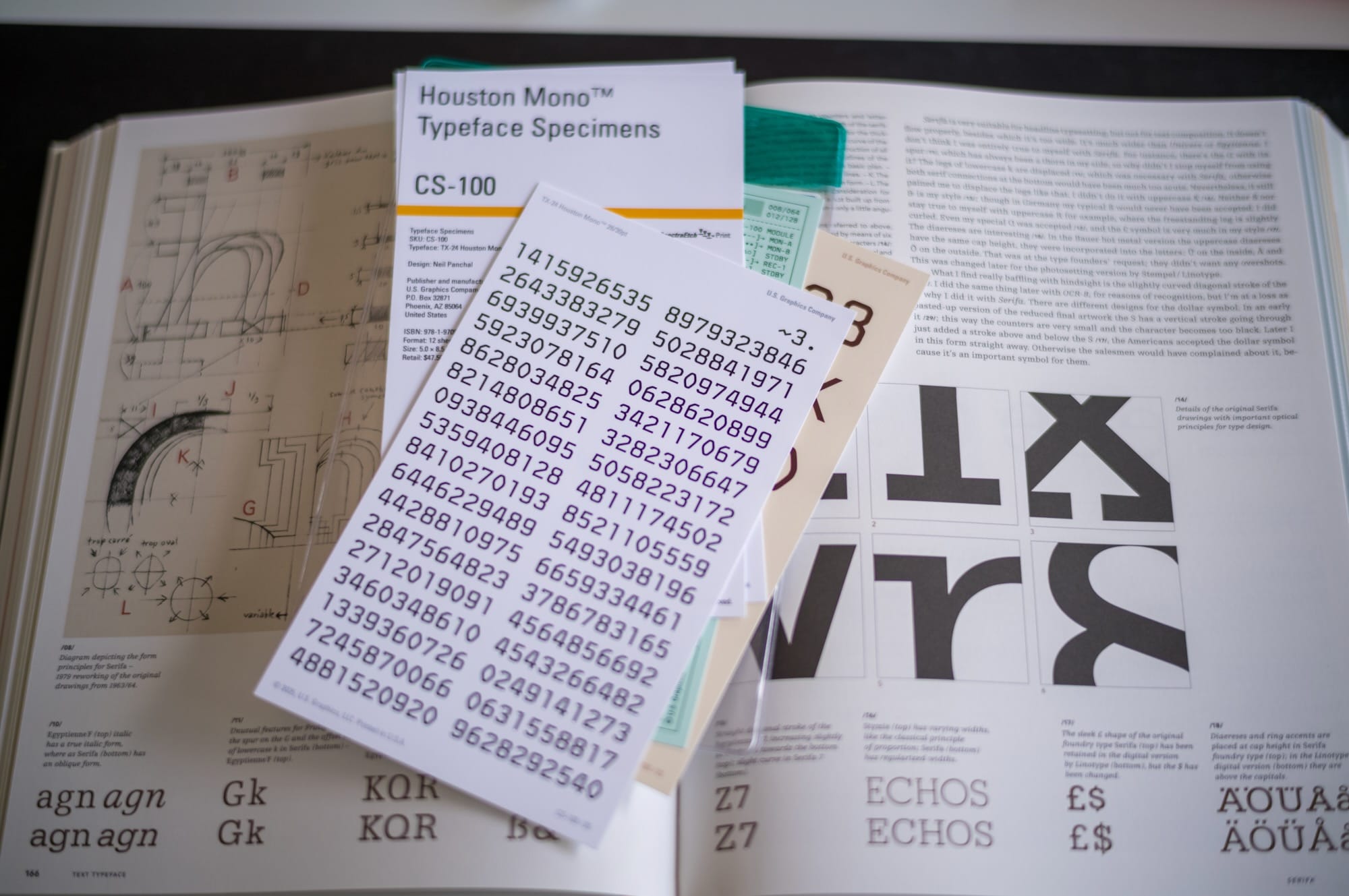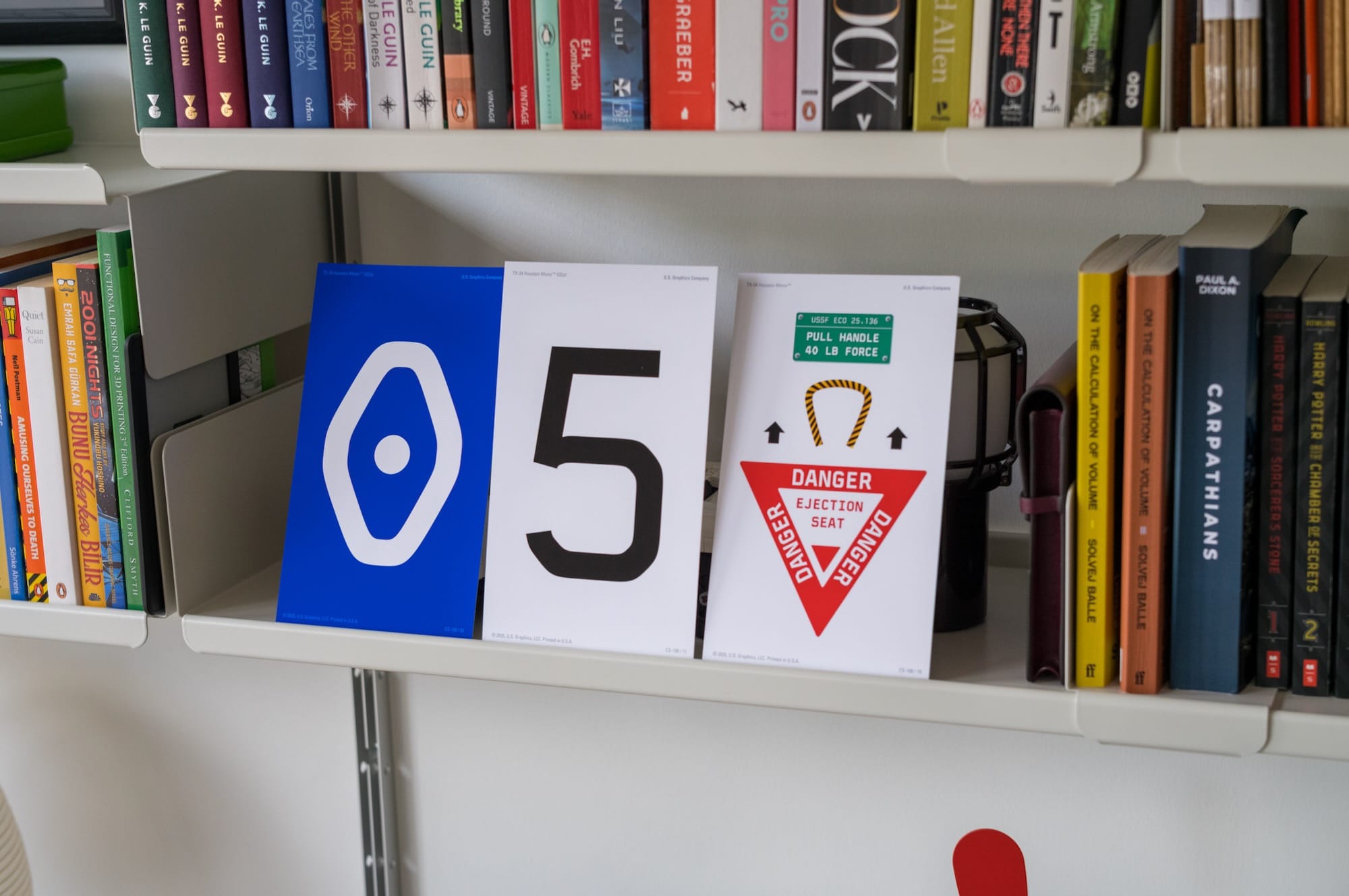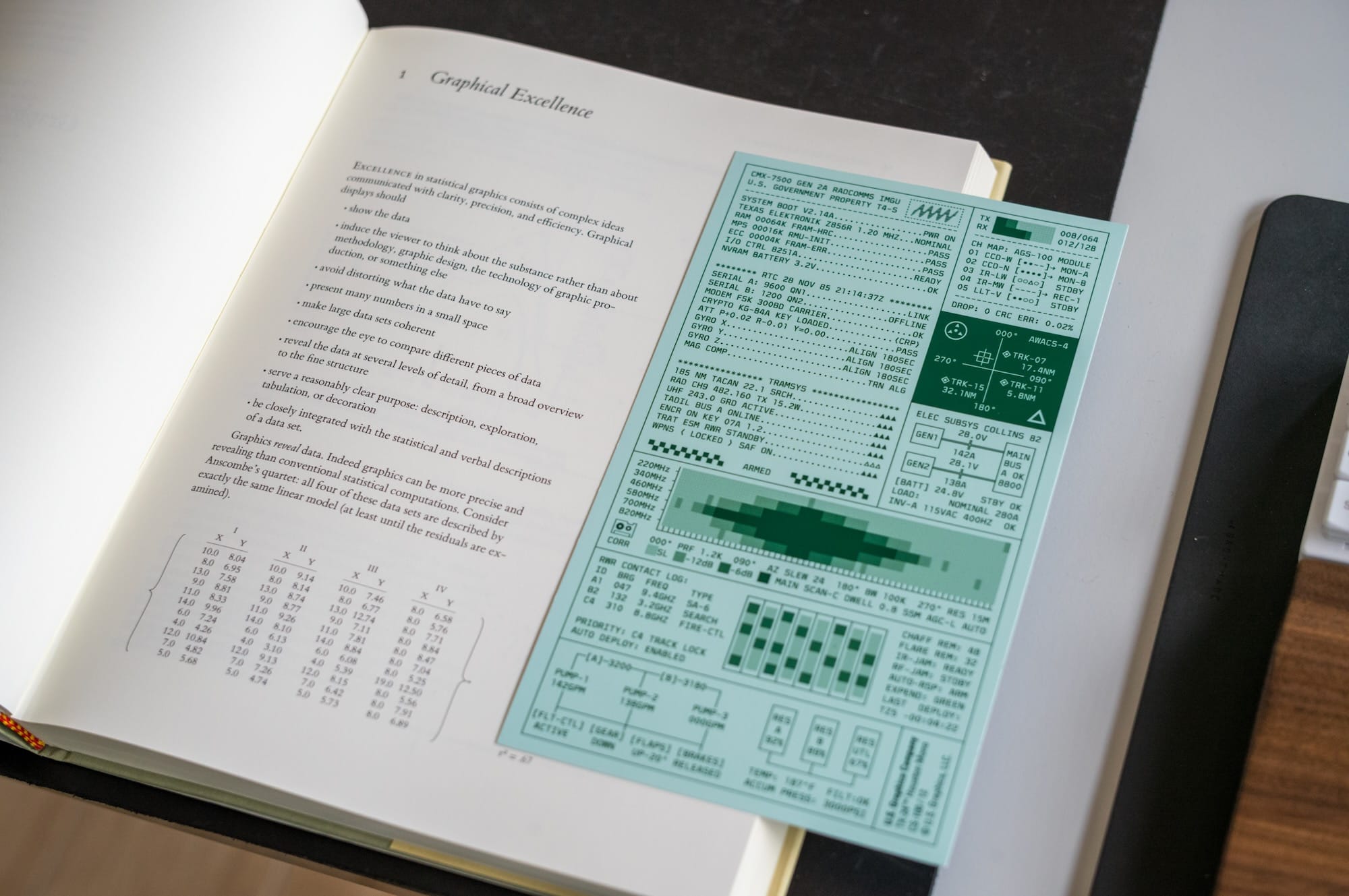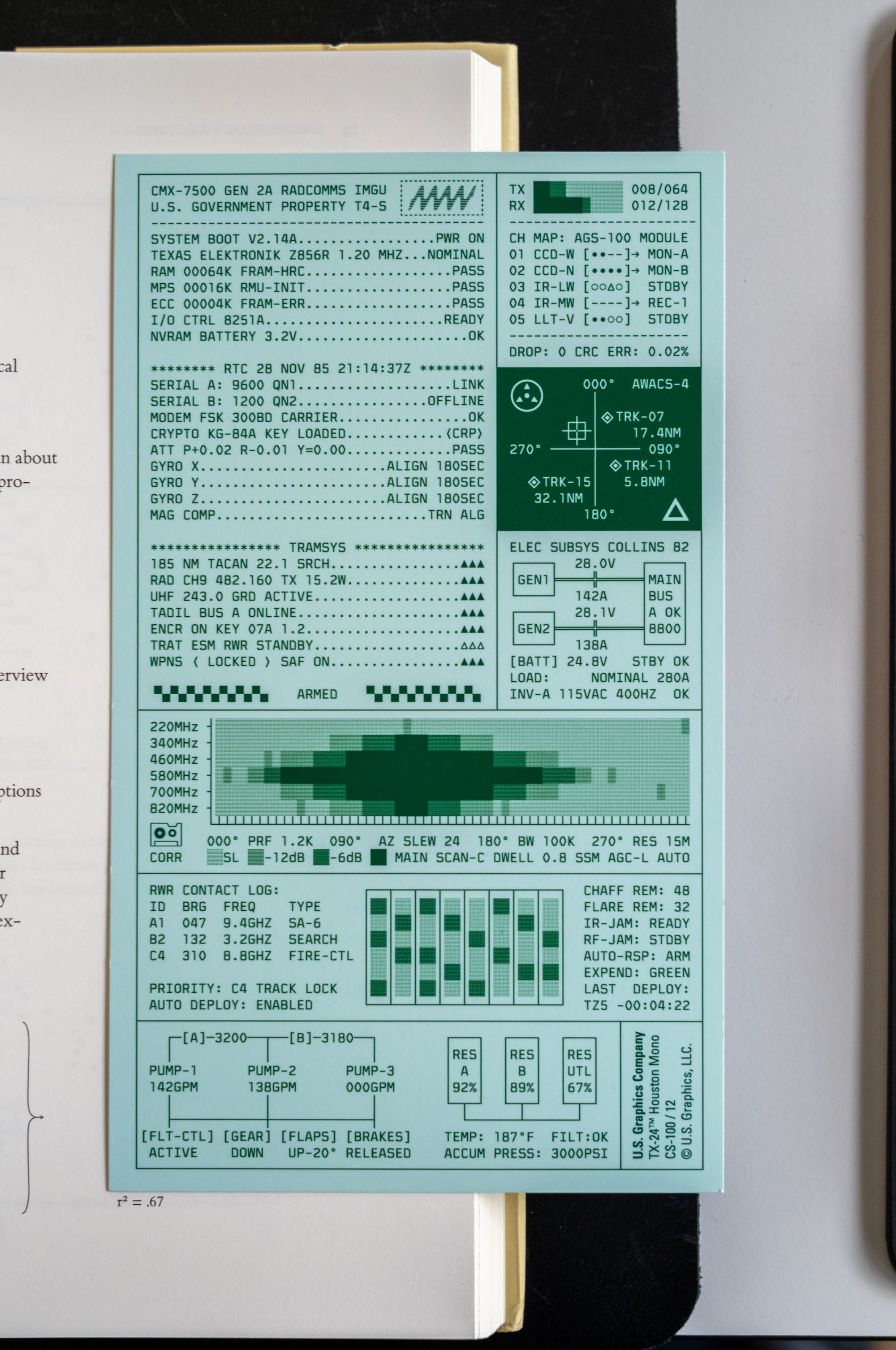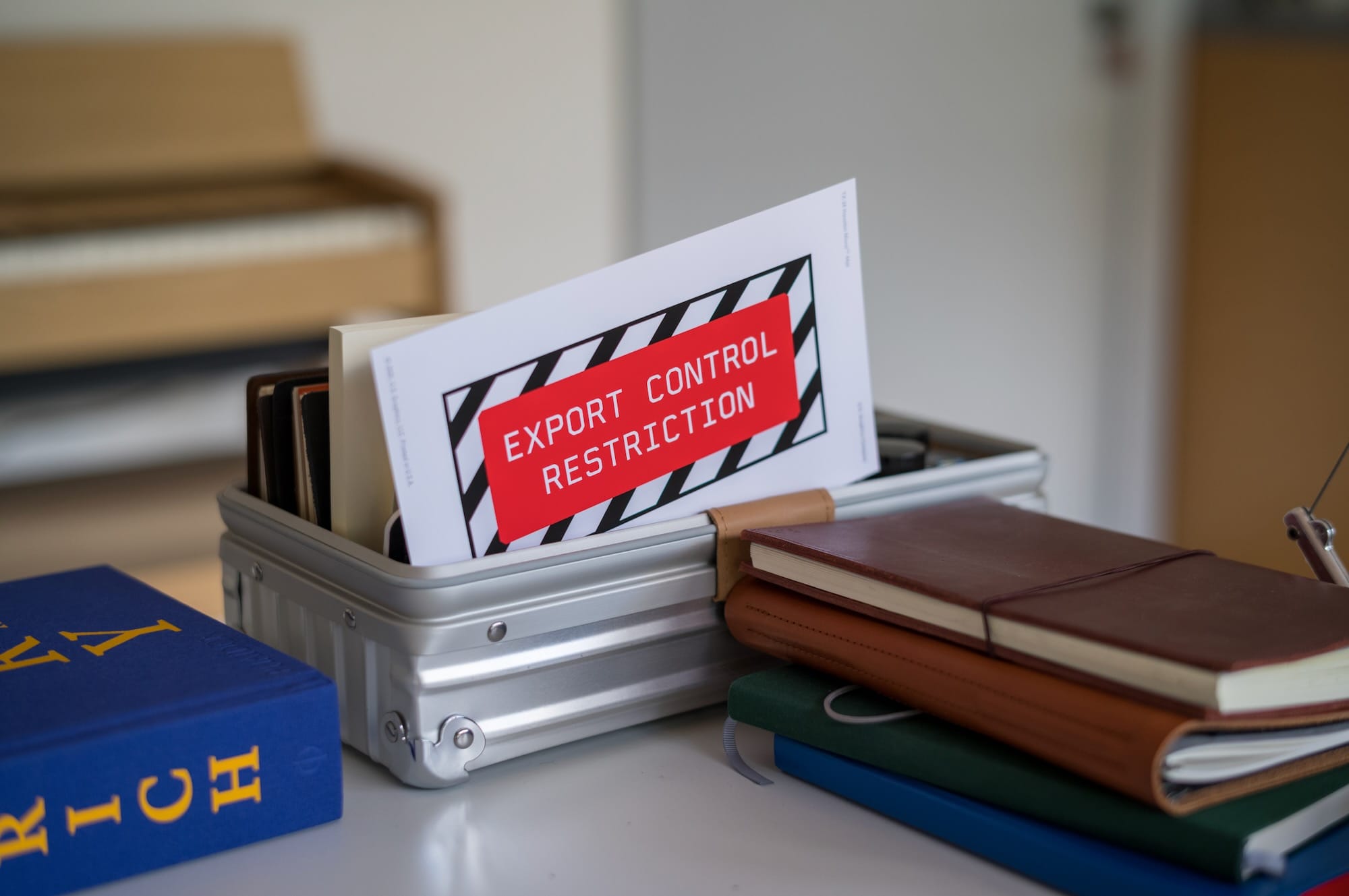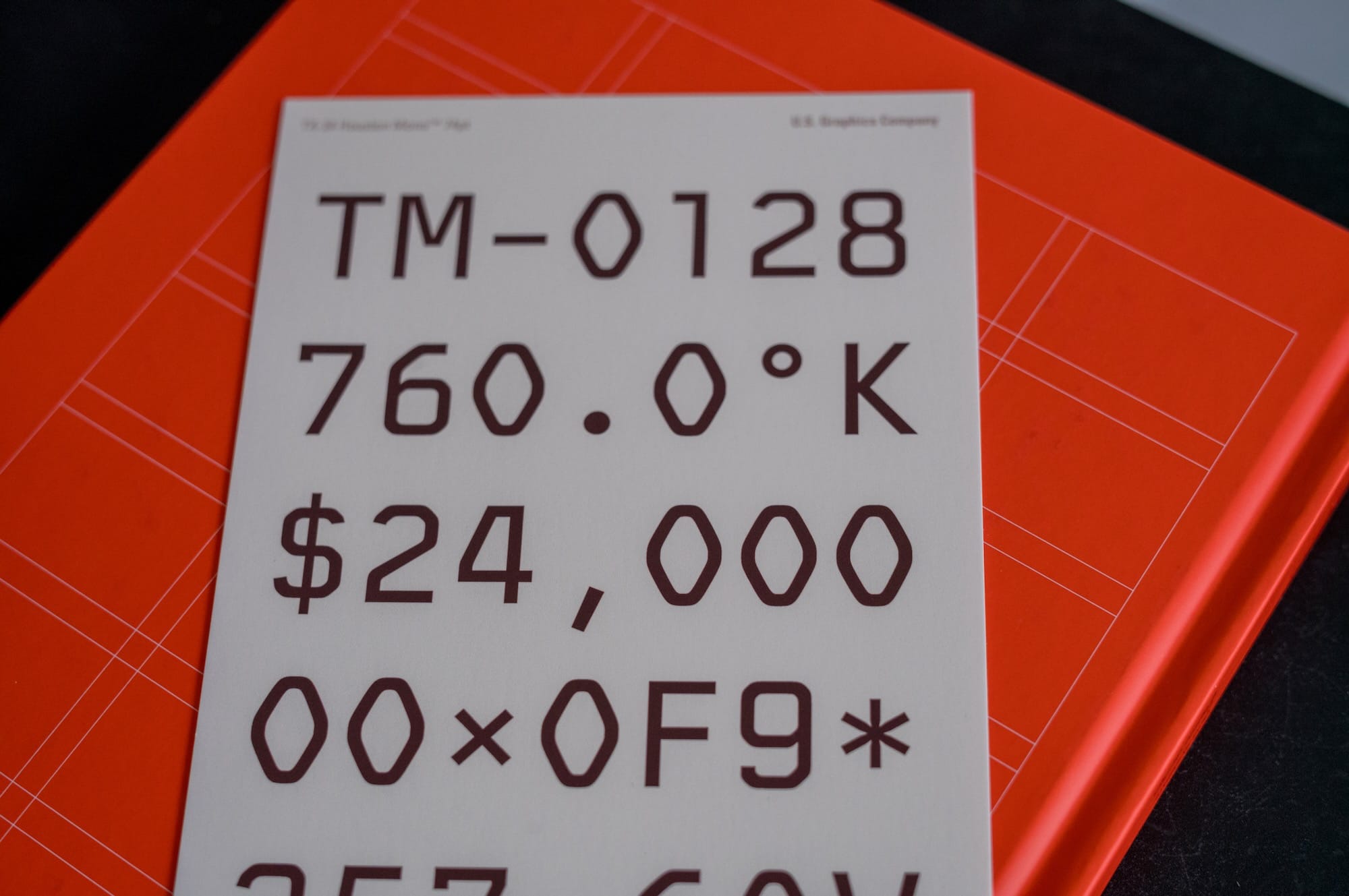
Typeface Specimens of Houston Mono™
Neil Panchal, the creator of soon-to-released Typeface Houston Mono™, recently sent me a complimentary set of the TX-24 Houston Mono typeface specimens. Some of you know this probably, but U.S Graphics is also the company that created the famous Berkeley Mono typeface.
I knew about fonts and typefaces, but I never paid much attention to the word “specimen” before. It sounds like something from a lab, a museum, or an old technical manual.
First, let me explain maybe what a typeface is. A typeface is the design of the letters. It is the overall system, such as the shape of the A, the curve of the S, the numbers, the punctuation, the spacing, and the whole visual character. Once that is done, you create a Font of it. A font is usually how that typeface is packaged and used on a computer. Nowadays we use both words interchangeably, but technically the typeface is the design, and the font is the thing you install and use.
Now, a typeface specimen is a sample that shows how a typeface behaves. It can show letters, numbers, symbols, different sizes, weights, and short pieces of text. Historically, foundries and printers used specimen books to show their typefaces to customers. Today, designers still make them, but they can be more than a catalog. They can become small design objects on their own.
I looked into how it was done earlier. If you want to see how type specimens looked across different periods, there are some great examples online. The 1882 Bruce’s New-York Type-Foundry specimen book on Archive.org is a beautiful old example of how foundries presented their typefaces to printers: https://archive.org/details/specimensofprint00geor. For something closer to the pre-digital graphic design era, Photo-Lettering’s 1971 One Line Manual of Styles has a very different, mid-century feeling: https://www.flickr.com/photos/stewf/albums/72157672536589760/. And for a modern example, Commercial Type’s printed specimen book shows how type specimens still exist today, not only as catalogs, but also as well-designed printed objects: https://commercialtype.com/news/specimen_of_typefaces_by_commercial_type
Typeface Specimens from various periods.
A typeface specimen doesn’t have to be printed. Today it can be a website, a PDF, or an interactive page. But historically specimens were printed, and I think print still gives them a different feeling. On paper, the typeface becomes an object, so you can feel how it behaves in real world.
Houston Mono is not released yet, but knowing Neil, I think he wanted to emulate and evoke the feeling of an 60/70's U.S Engineer handling these for their next project. That is what I like about this set. Houston Mono is not only shown as a set of letters. It's about a story.
The paper, the printing, the diagrams, the labels, the technical layout, everything supports the idea of being this Engineer in a lab developing the next big thing. It feels like something you would find next to an old terminal, or inside a forgotten engineering manual.
The specimens are printed using something he calls SpectraEtch™. I’m not fully sure whether this is a specific printing process, a branded production method, or part of their fictional engineering language around the product. Maybe it is all of them. But it fits the object very well. The name itself sounds like it belongs on a data sheet.